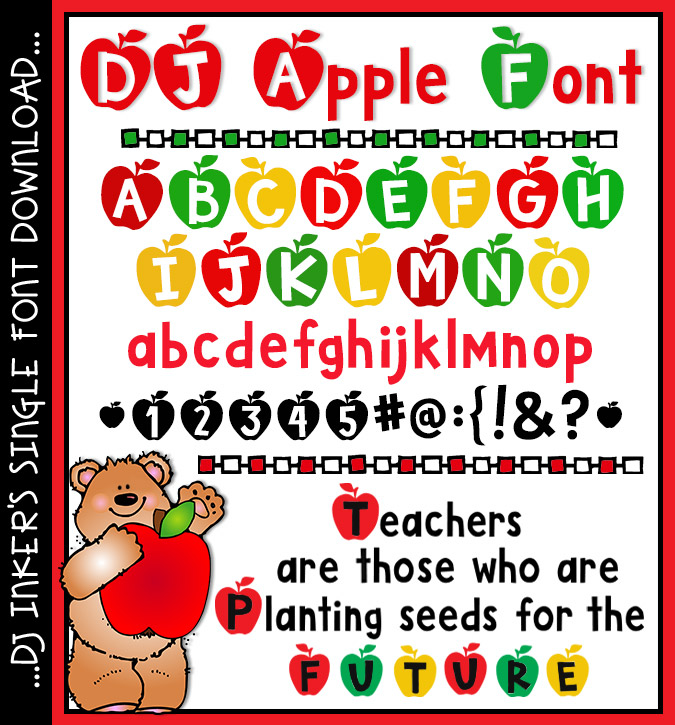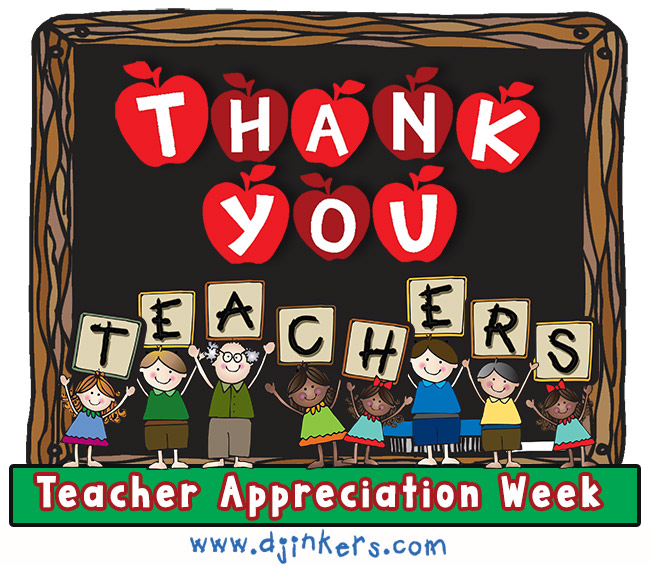
DJ Apple Font Download
This bold, delicious teacher font is the cutest apple in the orchard!
Perfect for headlines, posters, Teacher Appreciation Day, back to school
and keeping the doctor away. ;)
This font is best in large sizes and looks great in red, green or gold.